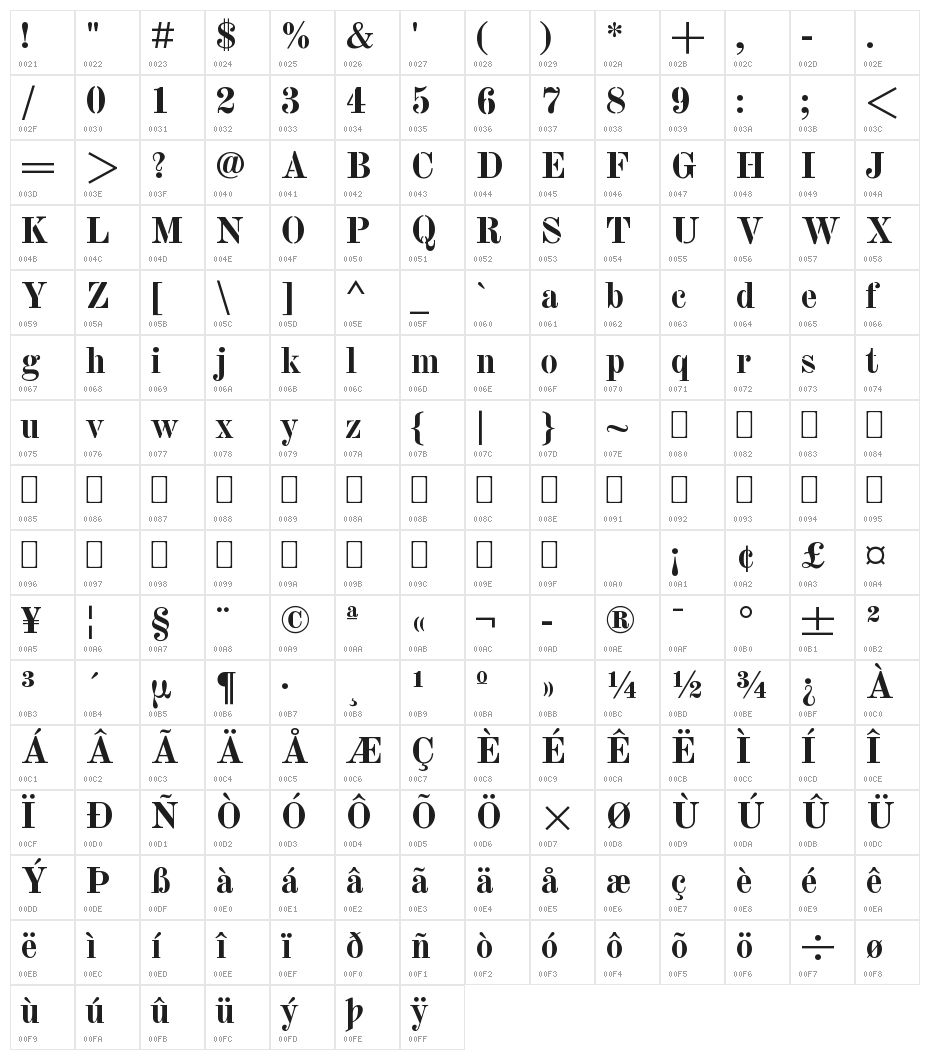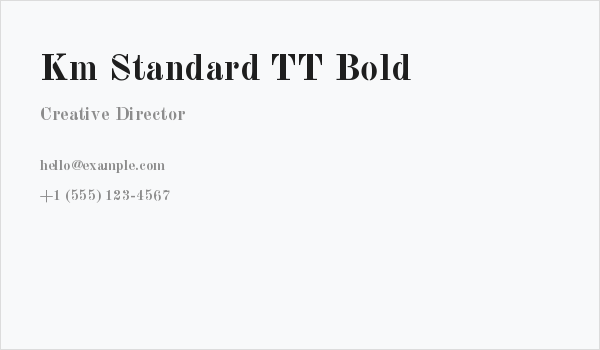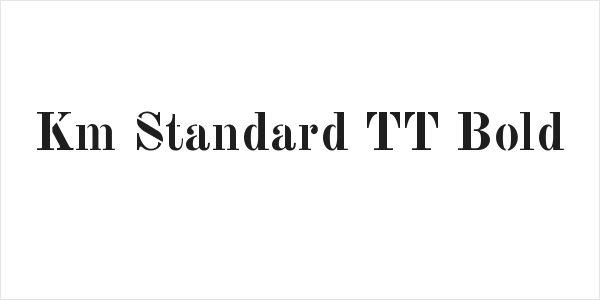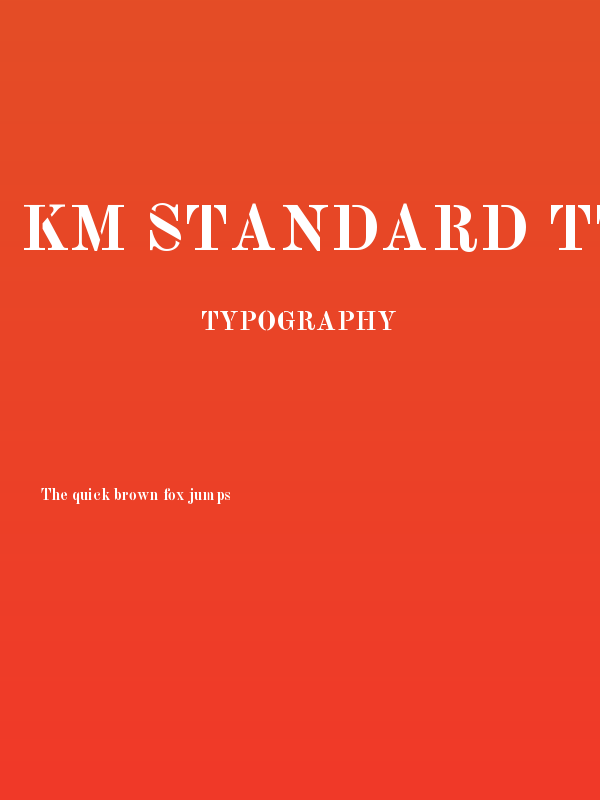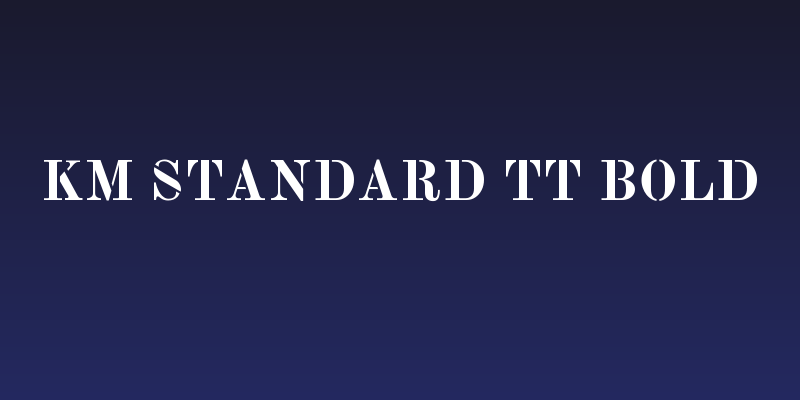
Km Standard TT Bold Font
Km Standard TT Bold Description
This font features a bold and striking design with strong vertical lines and thick serifs, creating a sense of authority and presence. The uppercase letters are particularly prominent, with a classic and timeless appeal. The lowercase letters maintain the boldness while offering a slightly softer edge, making them versatile for various uses. The numerals are equally bold, ensuring they stand out in any context. Special characters are designed with the same boldness, ensuring consistency across all glyphs. This font is ideal for making a statement and capturing attention.
| Proposed Projects | Ideal for headlines, posters, branding, and any project requiring a strong visual impact. |